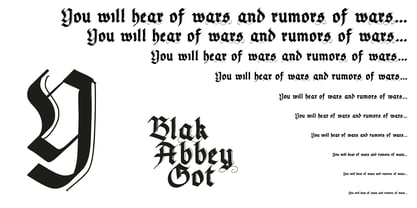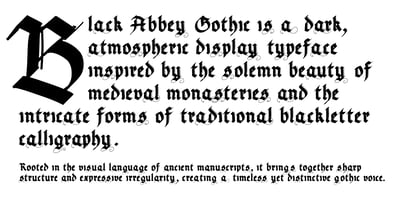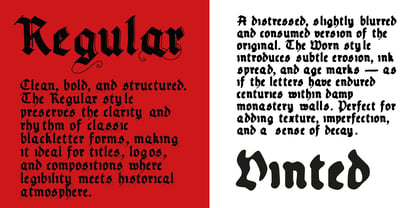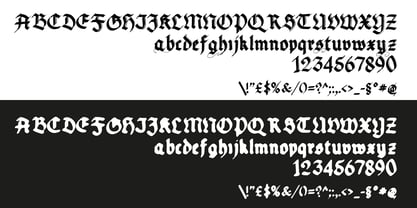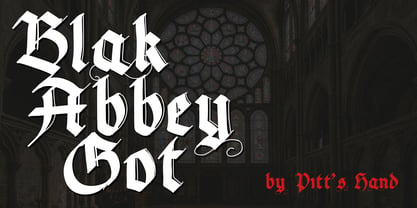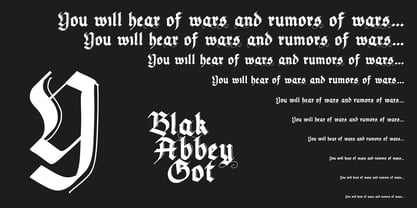
Black Abbey Got
by Pitt's Hand
The Black Abbey Got Font Family was designed by Pietro Rotelli and published by Pitt's Hand. Black Abbey Got contains 2 styles and family package options. More about this family
• Black Abbey Got Regular
• Black Abbey Got Vinted
Black Abbey Got is a dark, atmospheric display typeface inspired by the solemn beauty of medieval monasteries and the intricate forms of traditional blackletter calligraphy. Rooted in the visual language of ancient manuscripts, it brings together sharp structure and expressive irregularity, creating a timeless yet distinctive gothic voice. Designed for projects that demand character and depth, Black Abbey Gothic evokes the silence of stone abbeys, candlelit scriptoria, and the weight of forgotten texts. Two Styles, One Spirit Regular Clean, bold, and structured. The Regular style preserves the clarity and rhythm of classic blackletter forms, making it ideal for titles, logos, and compositions where legibility meets historical atmosphere. Worn A distressed, slightly blurred and consumed version of the original. The Worn style introduces subtle erosion, ink spread, and age marks — as if the letters have endured centuries within damp monastery walls. Perfect for adding texture, imperfection, and a sense of decay. Perfect For Book covers & editorial design Dark fantasy & medieval-themed projects Album artwork (metal, ambient, experimental) Branding with a gothic or historical tone Posters, packaging, and atmospheric visuals Features Uppercase & lowercase characters Numbers & punctuation Two stylistic variants: Regular & Worn Carefully crafted blackletter-inspired forms Strong visual impact for display use A Timeless Gothic Voice Black Abbey Got is not just a typeface — it’s a visual echo of a distant past, where ink, stone, and silence shaped the written word.